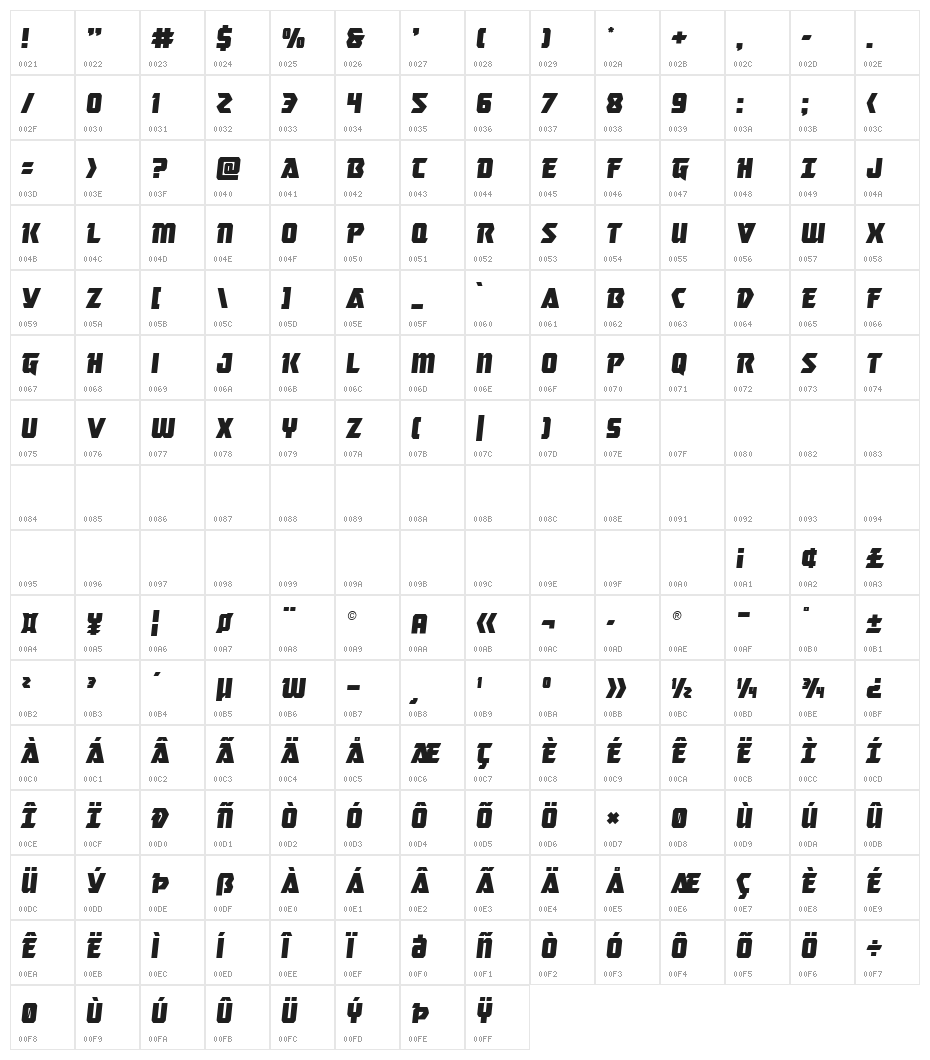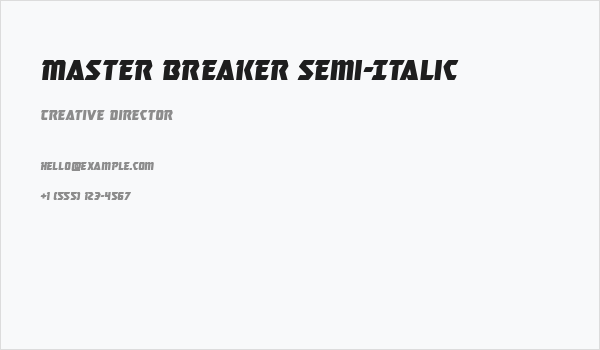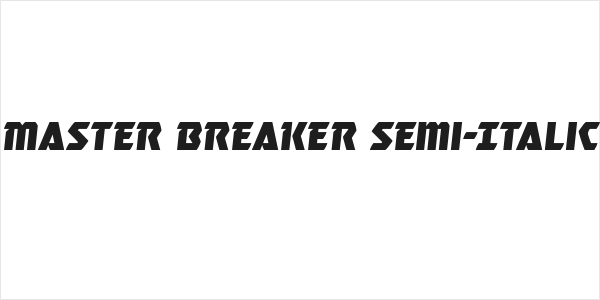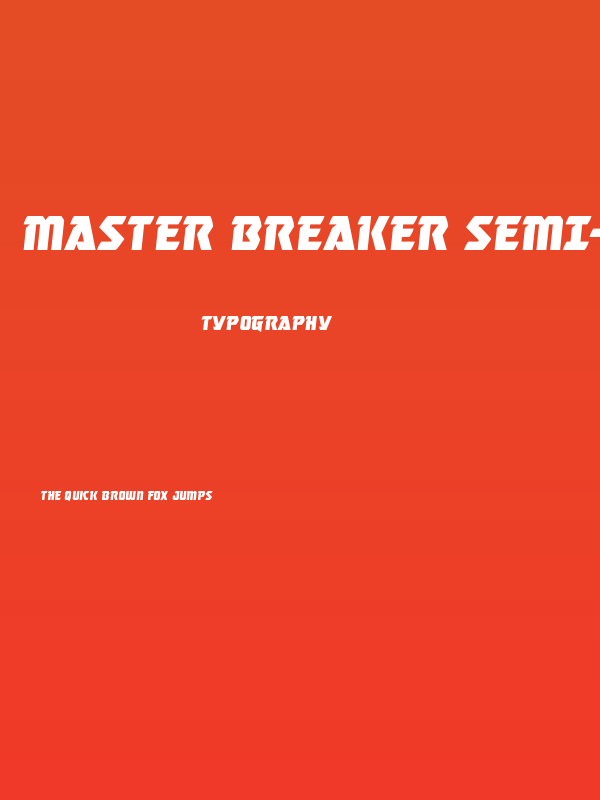
Master Breaker Semi-Italic Font
Master Breaker Semi-Italic Description
This font features a bold and dynamic style with a semi-italic slant, giving it a sense of movement and energy. The characters are designed with sharp, angular edges and a slightly condensed form, creating a strong visual impact. The uppercase and lowercase letters maintain a consistent style, with the uppercase being more prominent. The numerals and special characters follow the same design principles, ensuring uniformity across all glyphs. This font's unique style makes it suitable for projects that require a modern and assertive look.
| Proposed Projects | Ideal for sports branding, action movie posters, video game titles, and dynamic advertising campaigns. |